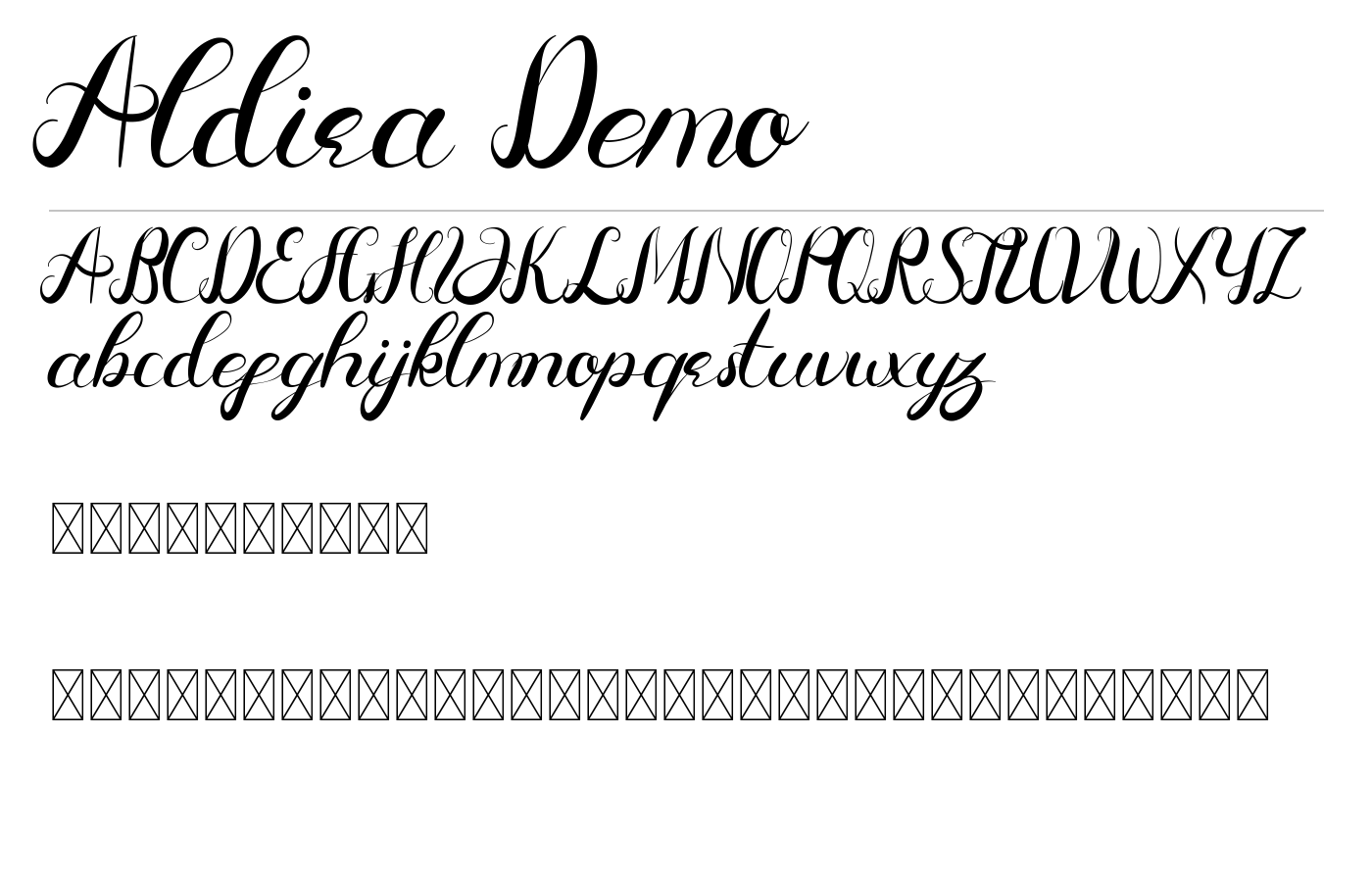
Aldira Demo is an elegant, script-style font with flowing, calligraphic strokes and moderate contrast between thick and thin lines. It features graceful uppercase and lowercase letters with unique swashes and loops, lending it a refined, sophisticated feel perfect for invitations, branding, and decorative headlines. This font’s stylish, hand-lettered appearance adds a touch of luxury and charm, making it ideal for fashion, beauty, or creative projects seeking a classy yet personal touch.
Aldira Demo Font
About Aldira Demo Font